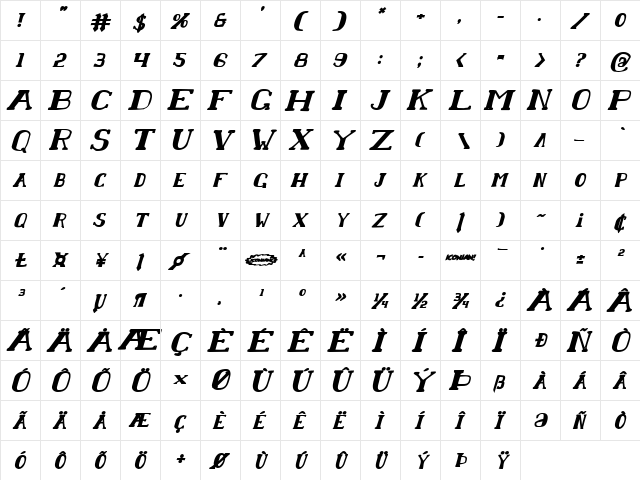
Design Context for Chardin Doihle Bold Italic Typeface
Chardin Doihle Bold Italic takes a measured approach to typography — its balanced proportions and neutral character make it a reliable workhorse for both digital and print work. Its italic angle brings a sense of urgency and motion to the letterforms. The heavy weight commands attention and anchors typographic hierarchies.
Pro Tip: Use Chardin Doihle Bold Italic for emphasis, pull quotes, and subheadings where its slanted energy can add rhythm to the layout.